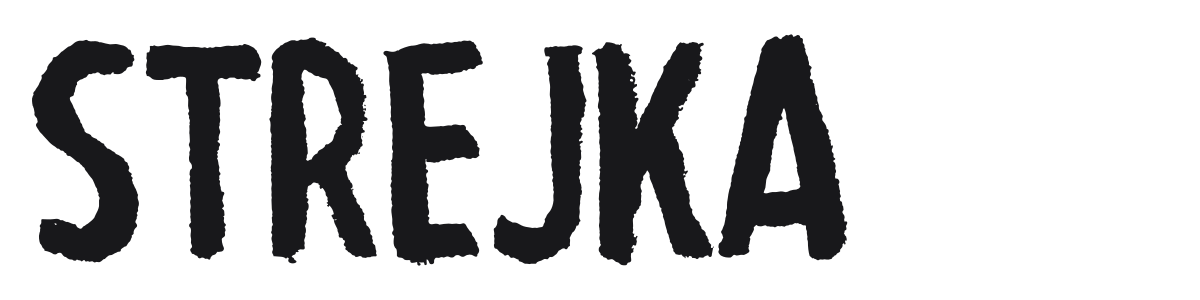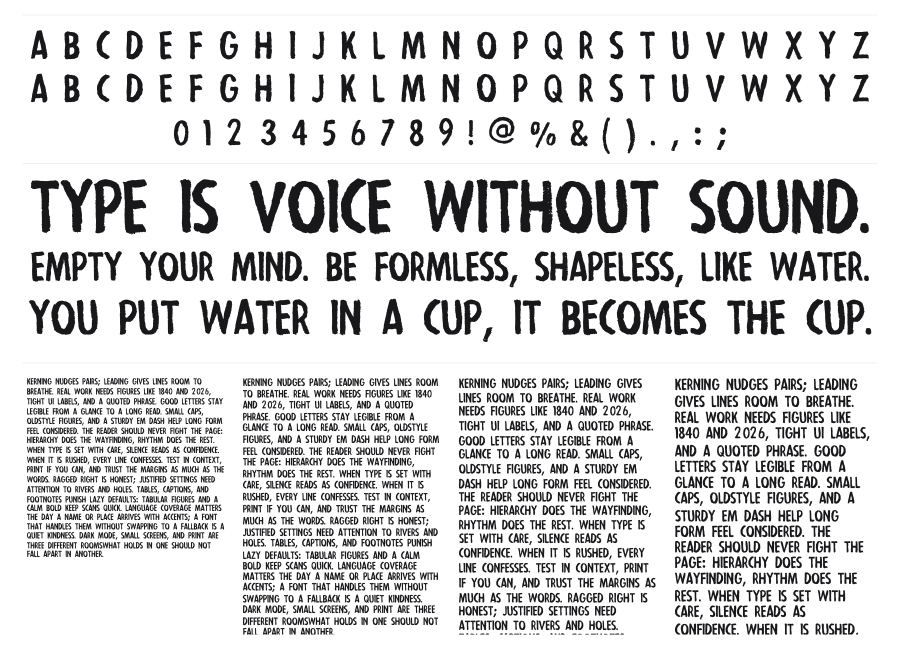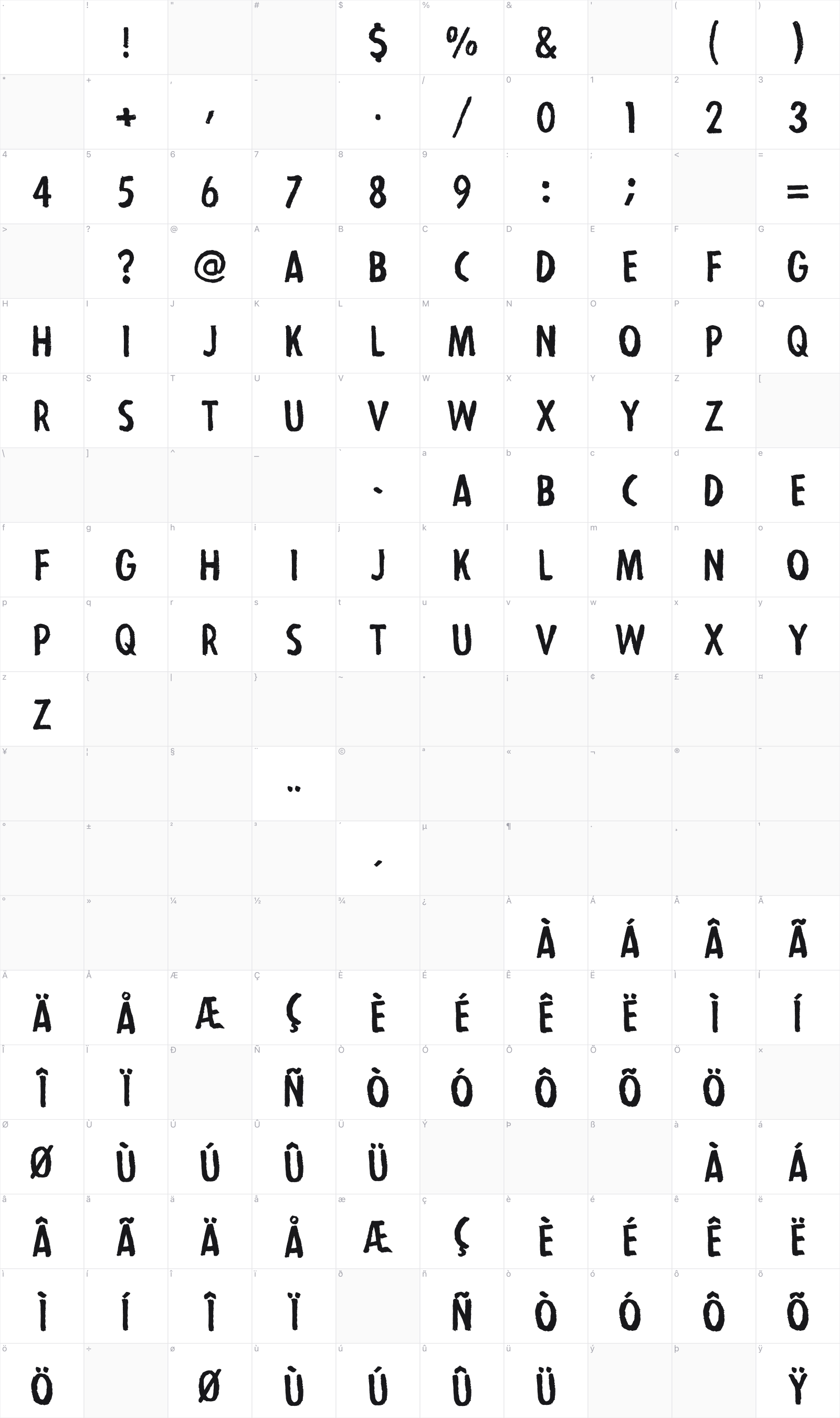
Strejka
by HENRIavecunK
Strejka is a bold, hand-painted display font with heavy distressing and a rough brush-stroke texture throughout. The characters feel like they were slapped on with a thick marker or stencil brush, full of character and controlled imperfection. It carries a street-art energy that works well for music, food, and any branding that wants to feel handmade and loud.